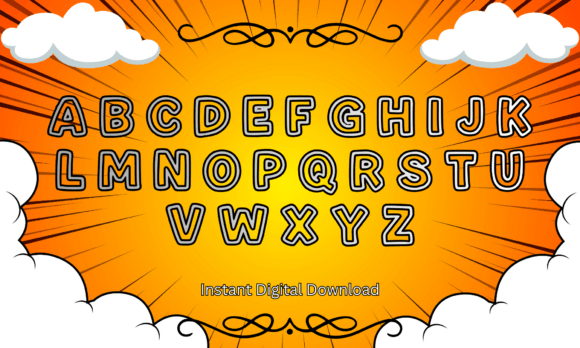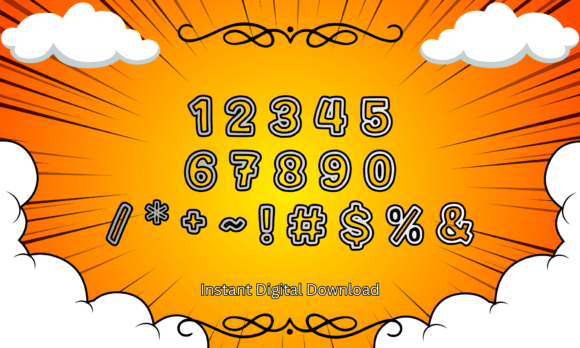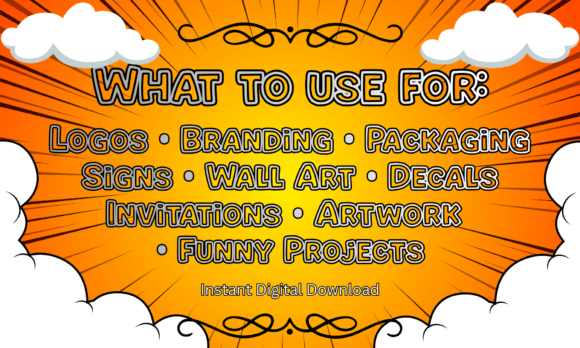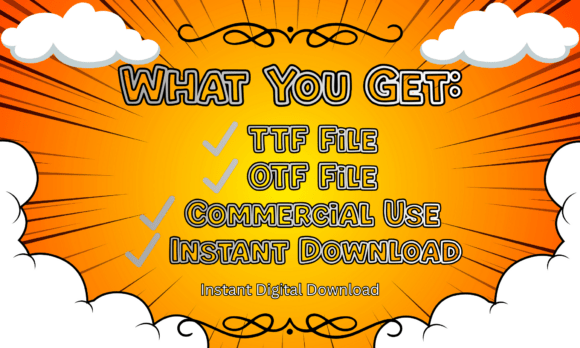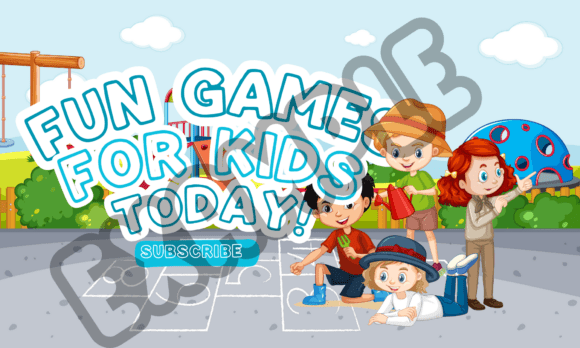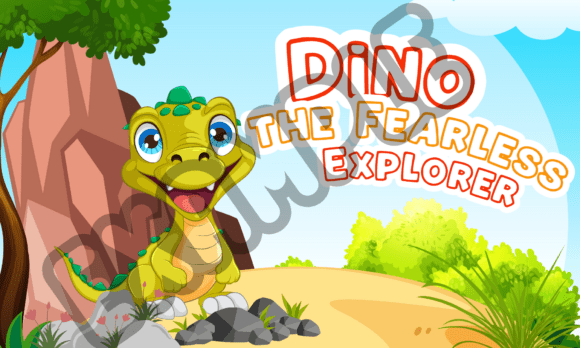
Bring Your Designs to Life with the Cartoon Outline Font
Who else remembers the joy of creating comic strips and cartoons as a kid? For many of us, drawing and storytelling were a way to express ourselves and bring our imagination to life. But, as we grew older, our creative spark didn’t fade – it just evolved. Today, we’re excited to share with you a font that will transport you back to those carefree days of creativity: the Cartoon Outline Font.
This playful, bold font is designed with thick outlines and rounded lettering, making it perfect for comic-style graphics, kids’ designs, stickers, signs, and eye-catching titles. The clean outline style makes it easy to layer colors, add shadows, or use it for print-and-cut projects. With the Cartoon Outline Font, you’ll be able to add a fun, energetic touch to your designs and bring a smile to your audience’s faces.
Cartoon Outline Font Key Features
- Unique Characteristics: The font features bold, playful lines and rounded edges, giving it a distinctive cartoonish look that is perfect for children’s books, comics, and other creative projects.
- Style Variations: Cartoon Outline Font comes in several style variations, including regular, bold, italic, and bold italic, allowing designers to choose the perfect look for their project.
Cartoon Outline Font Review
First off, I want to say that I’m a fan of the Cartoon Outline Font’s unique style ✨. It’s fun, playful, and instantly grabs your attention. The bold lines and rounded shapes give it a childlike charm that’s perfect for whimsical designs.
The font is also highly customizable ✨. It comes in a variety of weights and styles, allowing you to adjust the look to suit your needs. Whether you’re creating a cartoon character or a playful logo, this font is a great choice.
Here are some of the things that work well with this font:
- Unique style and design
- Fun and playful vibe
- Works well for whimsical designs
However, there are some limitations to consider ⚠️:
- May not be suitable for formal or professional designs
- Can be difficult to read in smaller sizes
- Limited language support
Overall, I think the Cartoon Outline Font is a great choice for designers looking for a fun and playful font ✨. While it may have some limitations, its unique style and customizability make it a valuable addition to any design arsenal.
Cartoon Outline Font is ideal for creating playful, hand-drawn designs. Use it for:
– Children’s books and educational materials
– Advertising and marketing campaigns
– Social media graphics and memes
– Personalized gifts and invitations